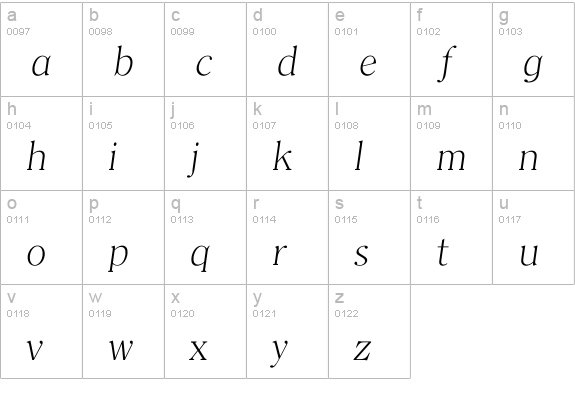
Introducing Iclerface Xlight, a stunningly elegant and versatile font that will effortlessly elevate your designs to new heights. With its sleek and modern design, this typeface offers a perfect balance between sophistication and simplicity, making it ideal for a wide range of projects. Iclerface Xlight features a delicate and refined appearance, characterized by its slender and graceful letterforms. Its thin strokes and subtle curves exude an air of elegance, making it the perfect choice for branding, logos, invitations, and any other design where a touch of sophistication is desired. What makes Iclerface Xlight even more appealing is that it is free! Yes, you read that right. This exceptional font can be freely downloaded at FontsMarket.com, allowing you to enhance your creations without breaking the bank. Whether you are a professional designer or a creative enthusiast, Iclerface Xlight opens up a world of possibilities, giving you the freedom to express your creativity without any limitations. Not only does Iclerface Xlight offer its stunning aesthetics, but it also boasts excellent legibility and readability. Its carefully crafted letterforms ensure that your messages are conveyed with clarity and precision, even at small sizes or on screens. This means that your designs will not only look visually stunning but will also effectively communicate your intended message to your audience. Furthermore, Iclerface Xlight supports multiple languages, making it a truly global font that can cater to a diverse range of projects and audiences. Whether you are designing for English, Spanish, French, or any other language, you can rest assured that Iclerface Xlight will provide the utmost typographic excellence. So, if you are in search of a font that combines elegance, versatility, and affordability, look no further than Iclerface Xlight. Experience the power of this exceptional typeface today by visiting FontsMarket.com, where you can download it for free and take your designs to the next level.